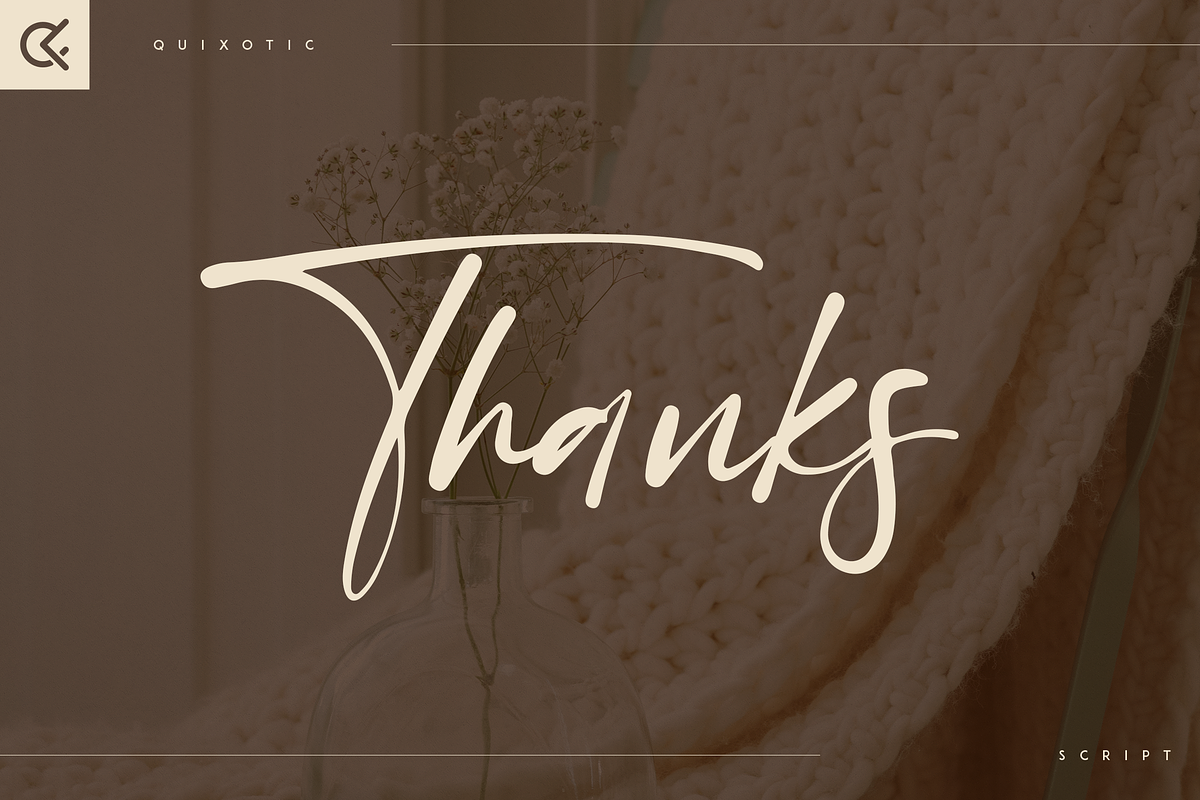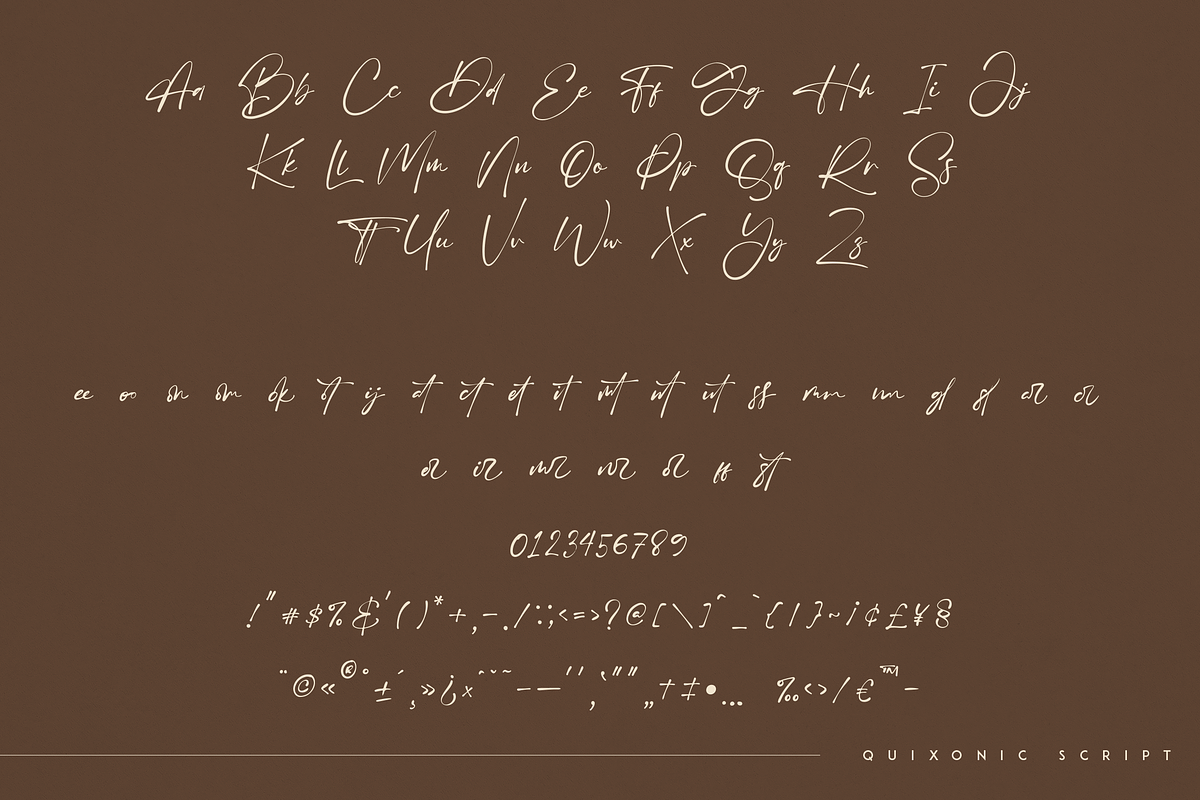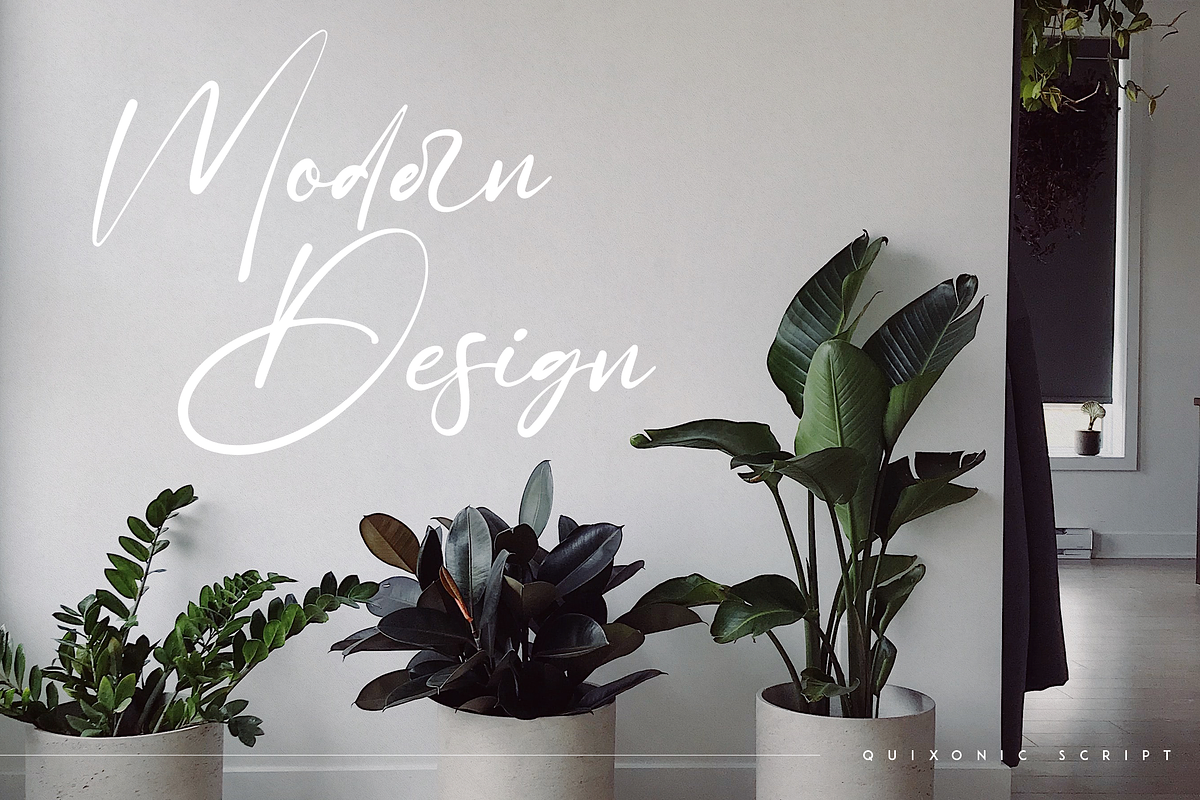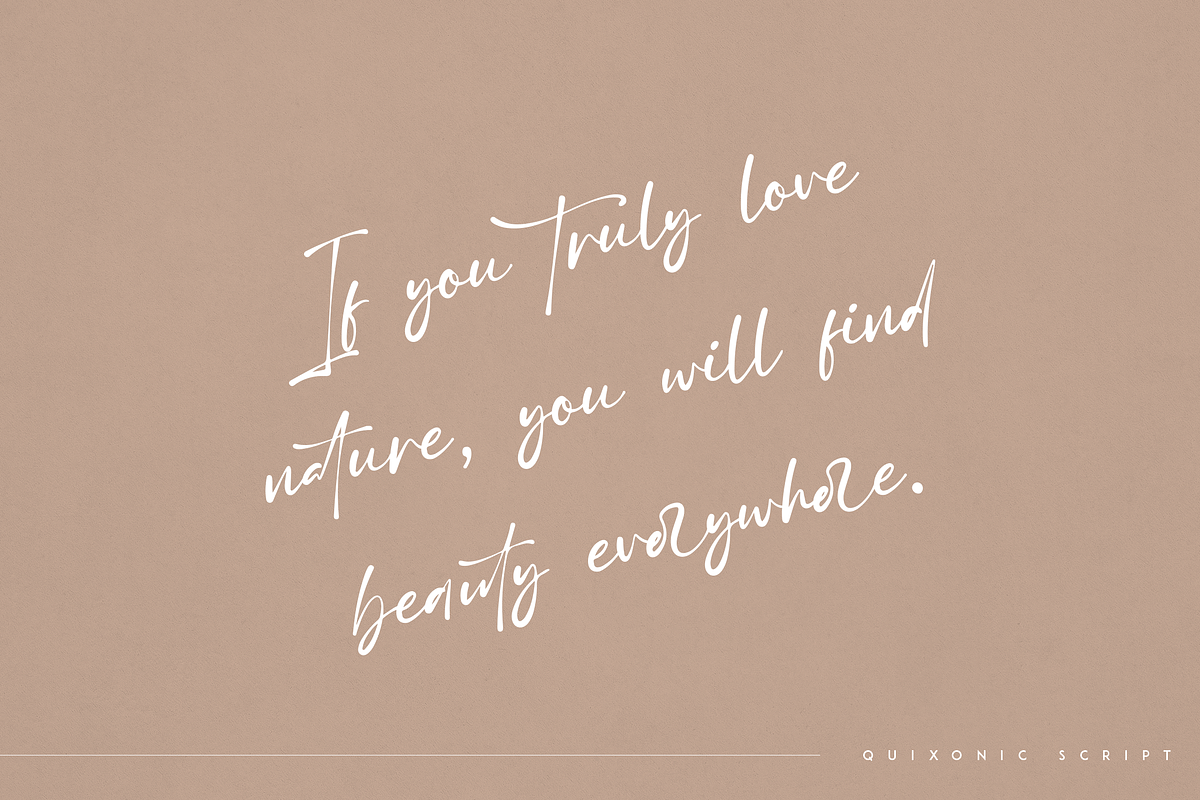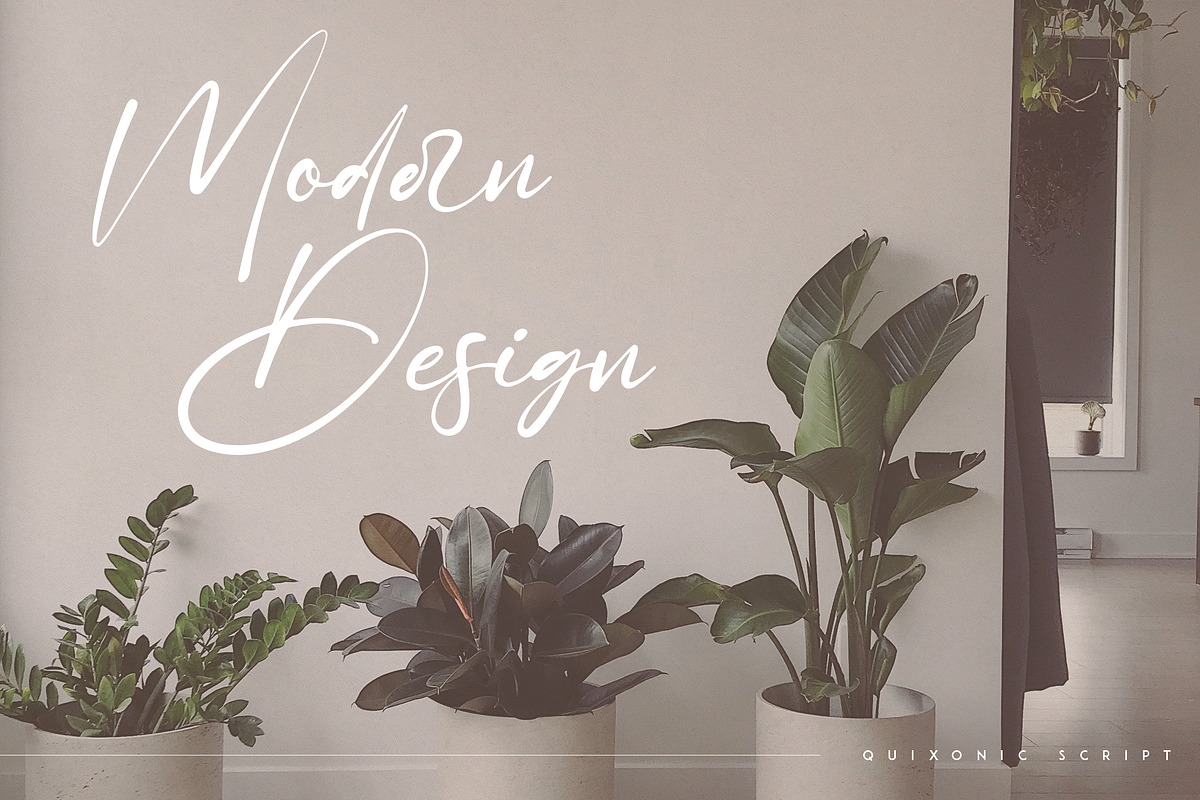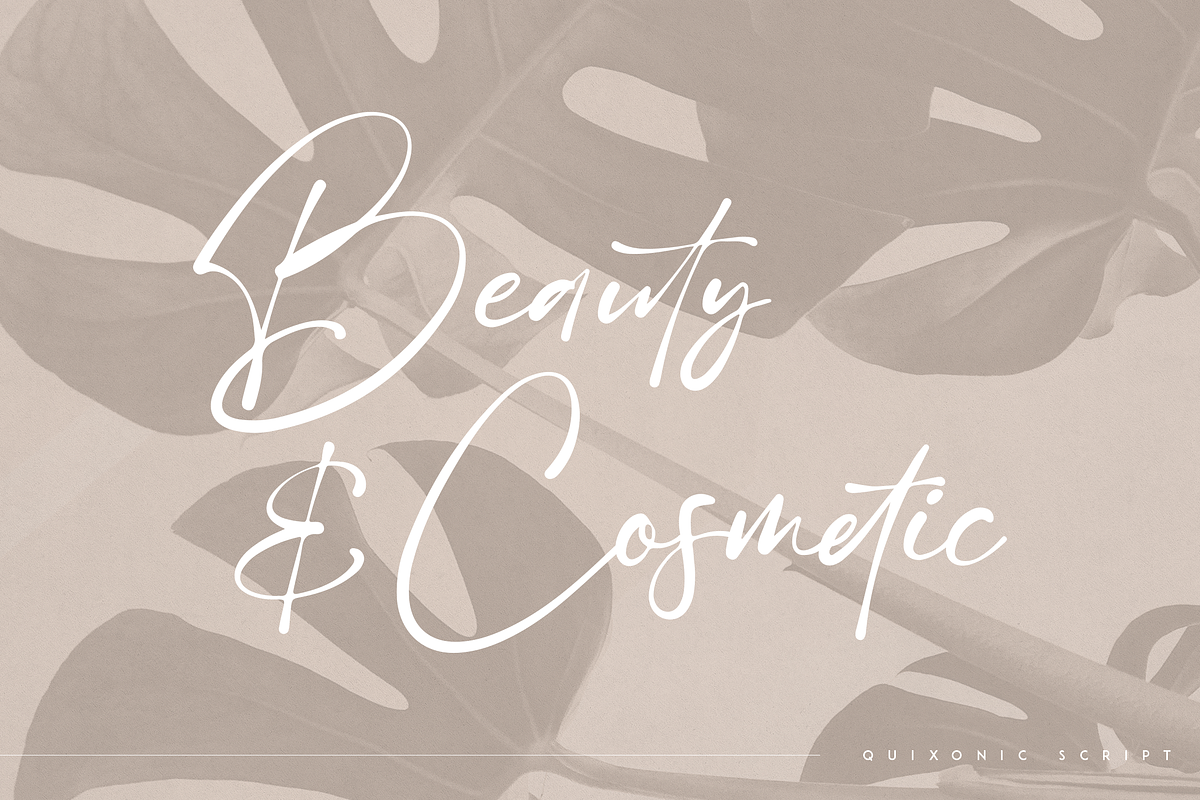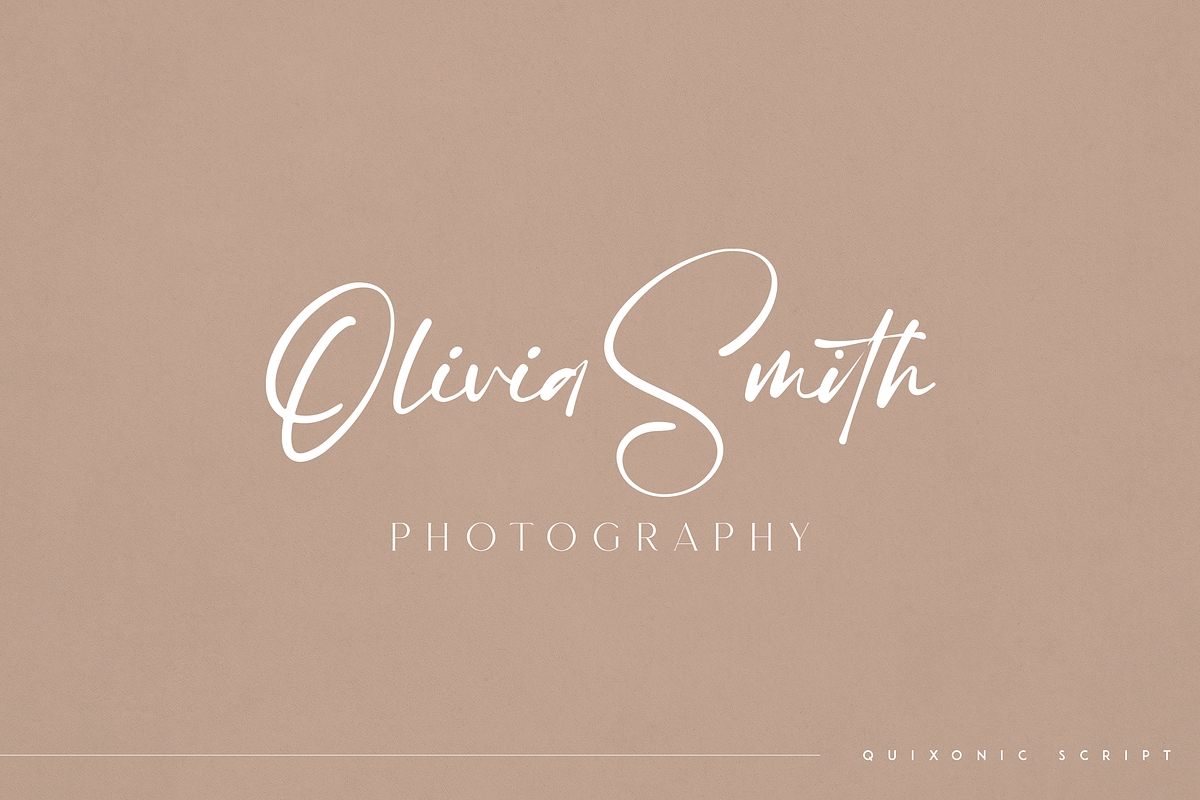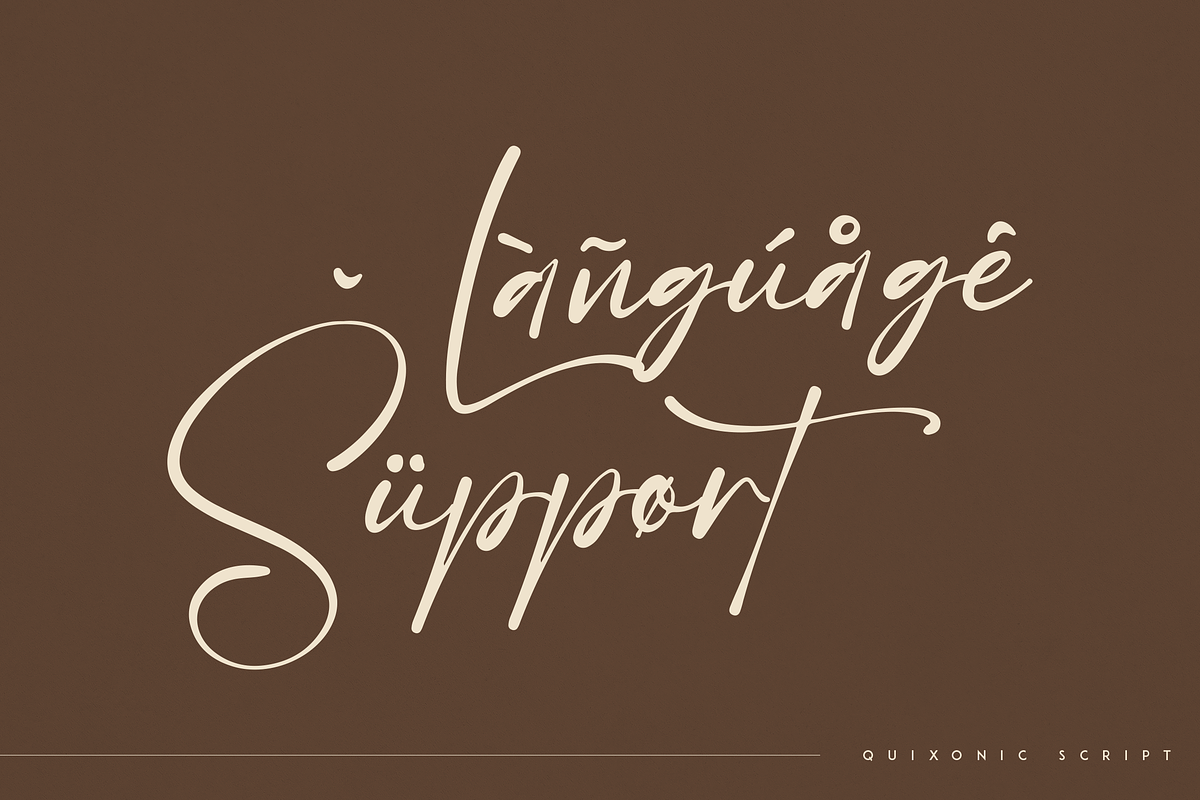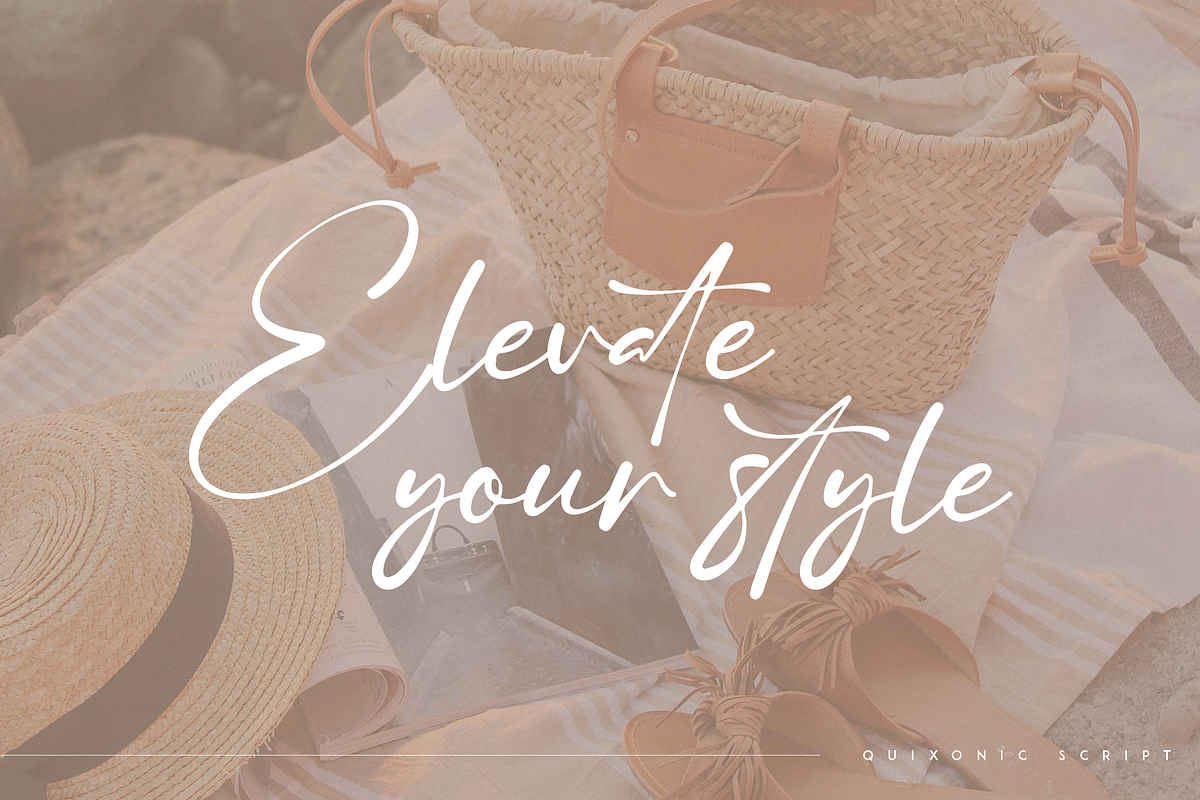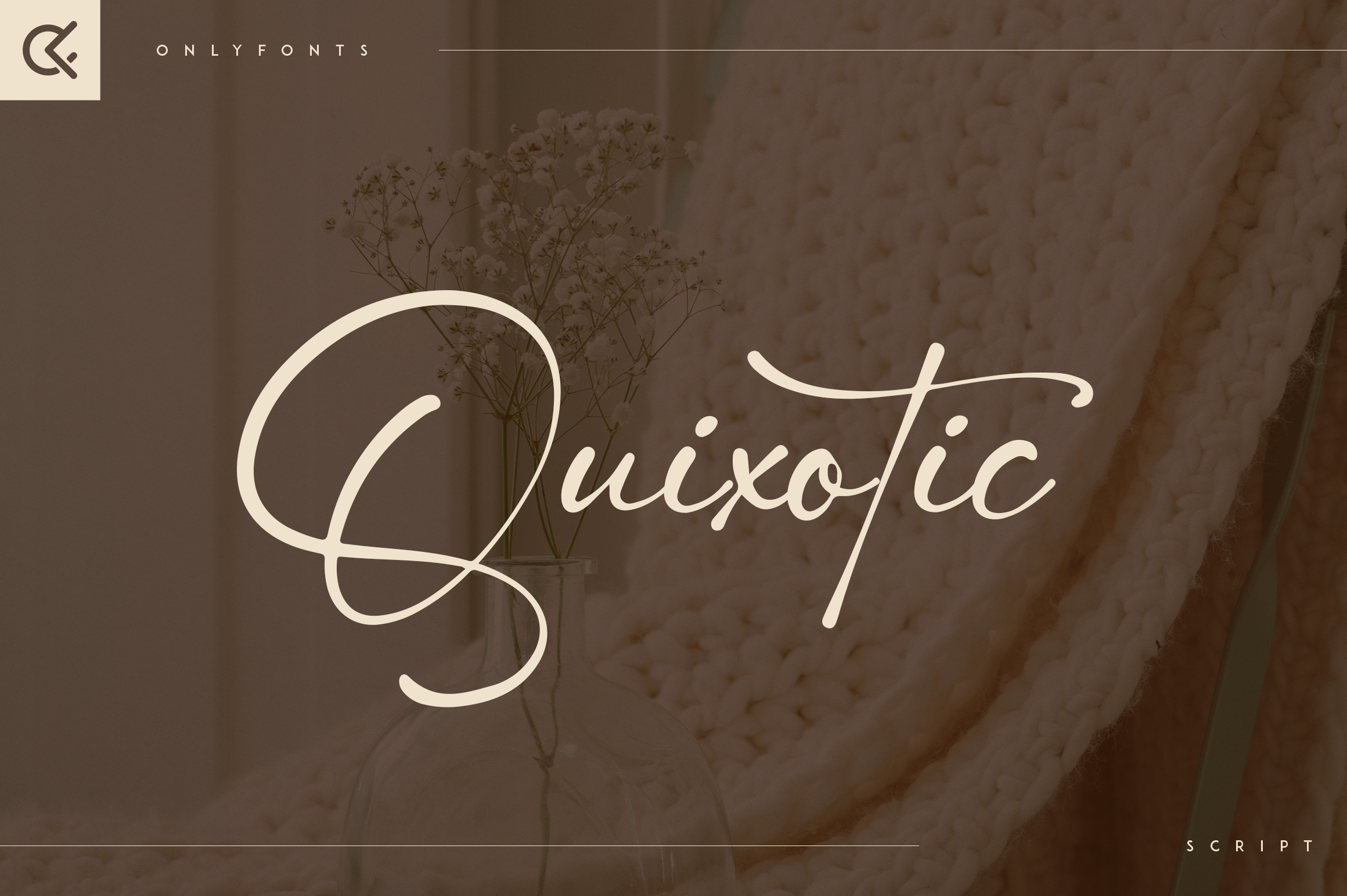
Quixotic - handmade script font
Introducing Quixotic - handmade script
Quixotic is handmade and organic script loaded with ligature glyphs and multilingual support. It's a very versatile font that works great in large and small sizes.
This font is perfect for branding projects, home-ware designs, product packaging, magazine headers - or simply as a stylish text overlay to any background image.
- Uppercase, lowercase, numeral, punctuation & Symbol
- ligature glyphs